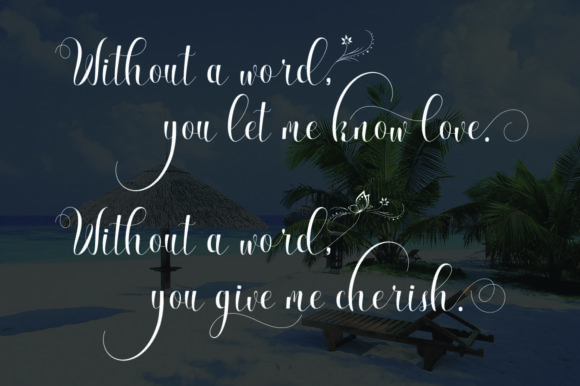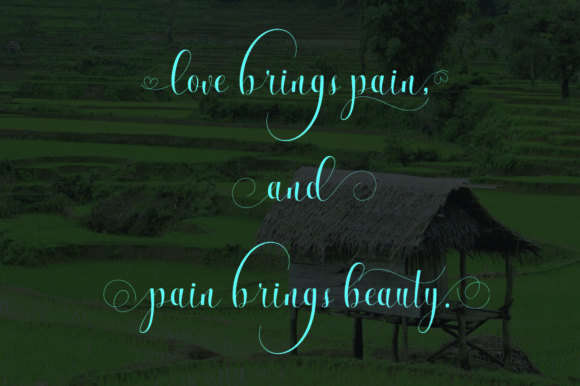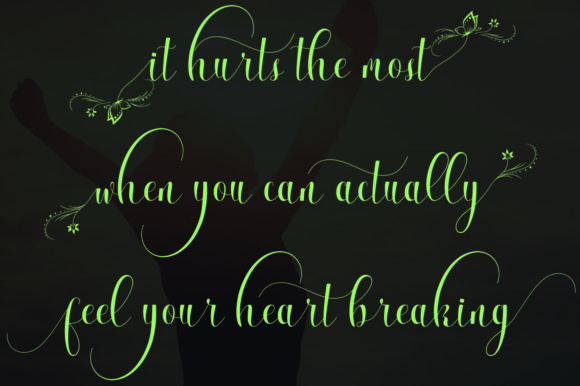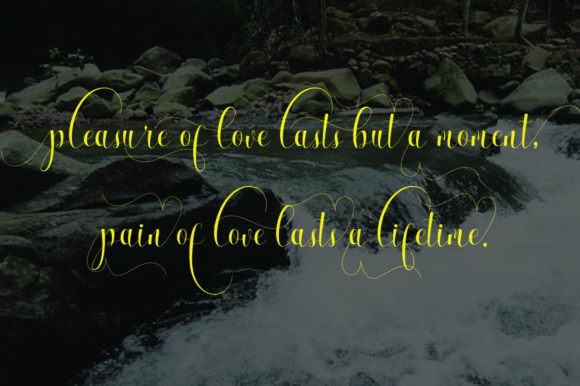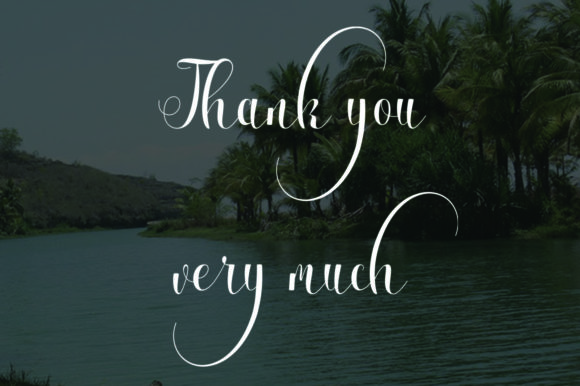
The Elegant Charm of Bankile Font: A Designer’s Delight
I’ll never forget the time I was working on a wedding invitation project, and my client specifically asked for a font that exuded elegance and sophistication. I scoured the internet, tried out countless fonts, but nothing seemed quite right. That was until I stumbled upon the Bankile font. Its modern calligraphy style, blending classic and contemporary elements, instantly won me over. In this article, I’ll share my experience with the Bankile font, its features, and how to make the most of it in your designs.
An Honest Review of Bankile Font
So, what makes the Bankile font special? Here are a few things I love about it:
- ✨ Elegant and sophisticated: Bankile’s modern calligraphy style adds a touch of luxury to any design.
- ✅ Versatile: It works well for various design projects, from wedding invitations to branding and packaging.
- 💫 Unique character: Bankile’s distinctive letterforms set it apart from more traditional calligraphy fonts.
While Bankile is an excellent font, it’s not without its quirks:
- 🤔 Limited use in body text: Due to its elegant, cursive nature, Bankile works best as a display font or for short paragraphs.
- ⚠️ Some letter combinations: As with any font, some letter combinations might not look perfect, but overall, Bankile’s kerning is well-done.
A Practical Guide to Using Bankile Font
- Experiment with OpenType features like ligatures and stylistic alternates to add more flair to your text.
- Explore glyphs and OpenType features to customize your text, such as swashes and alternate characters.
The Story Behind Bankile Font
The Bankile font was designed with the intention of blending traditional calligraphy with modern sensibilities. Its creator aimed to produce a font that would be both elegant and versatile, suitable for a wide range of design applications. While the actual origins of Bankile might be unclear, its design inspiration likely comes from classic calligraphy and a desire to create something fresh and unique.
| What type of projects is Bankile best suited for? | Bankile is ideal for designs that require an elegant touch, such as wedding invitations, luxury branding, and high-end packaging. |
| Can I use Bankile for body text? | While possible, Bankile is best used as a display font or for short paragraphs due to its elegant, cursive nature. |
| Does Bankile support OpenType features? | Yes, Bankile supports various OpenType features, including ligatures, stylistic alternates, and glyphs, which can enhance your designs. |
| Is Bankile suitable for digital use? | Absolutely! Bankile’s clear and elegant design makes it suitable for both print and digital applications. |